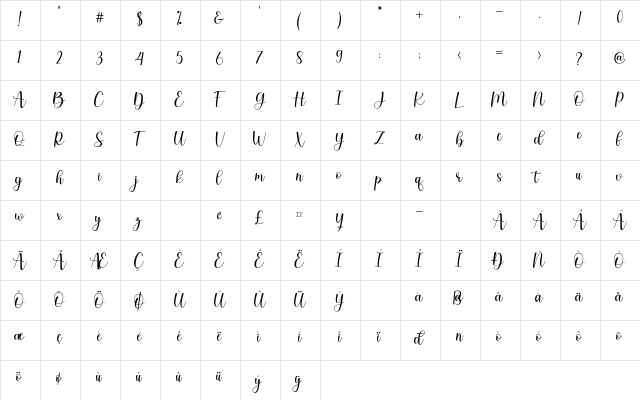
luisha Regular Font Preview
luisha Regular
luisha Regular Font Details
Design Context for luisha Typeface
luisha is a composed and adaptable typeface that performs quietly and consistently across a wide range of design contexts.